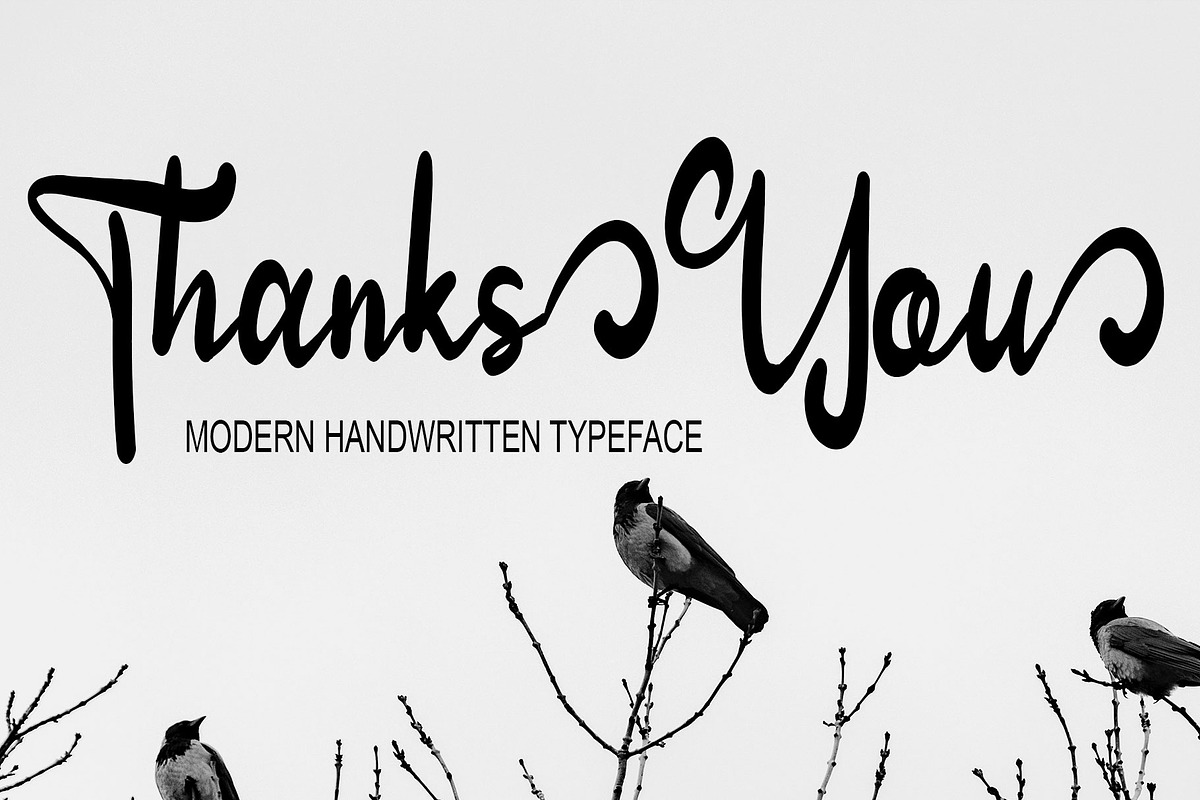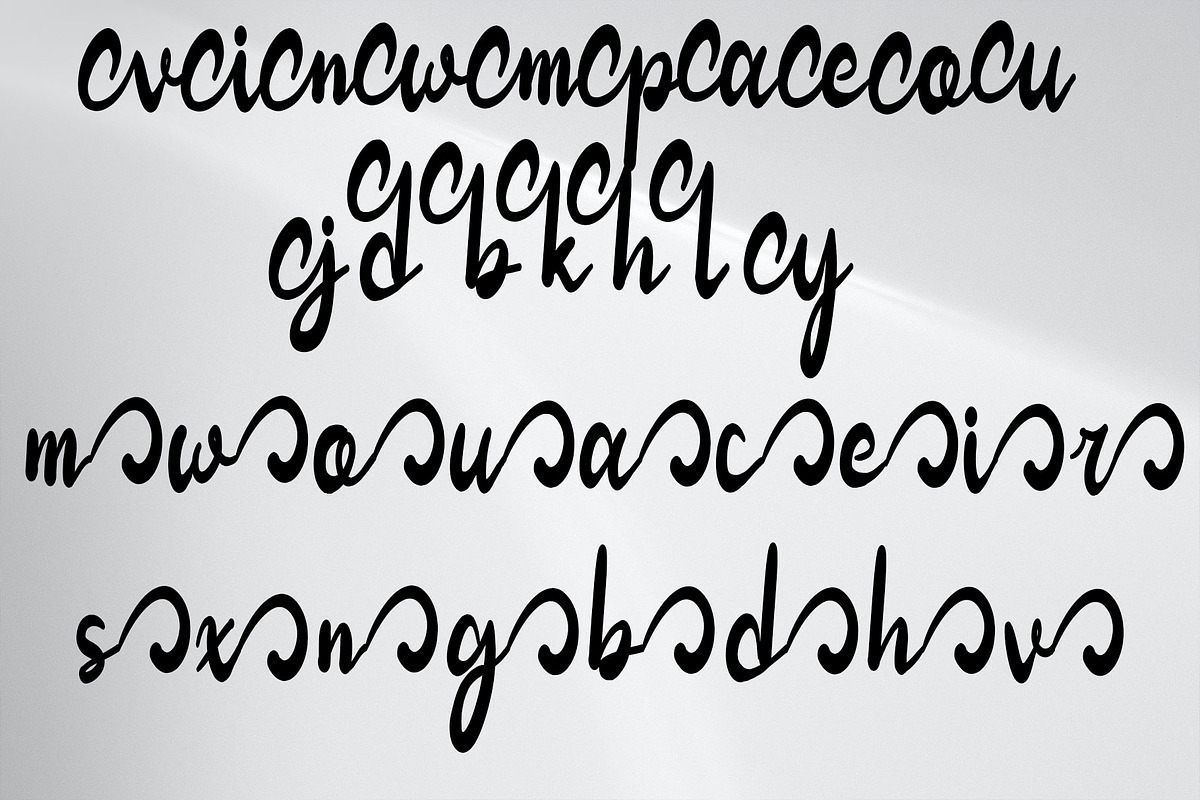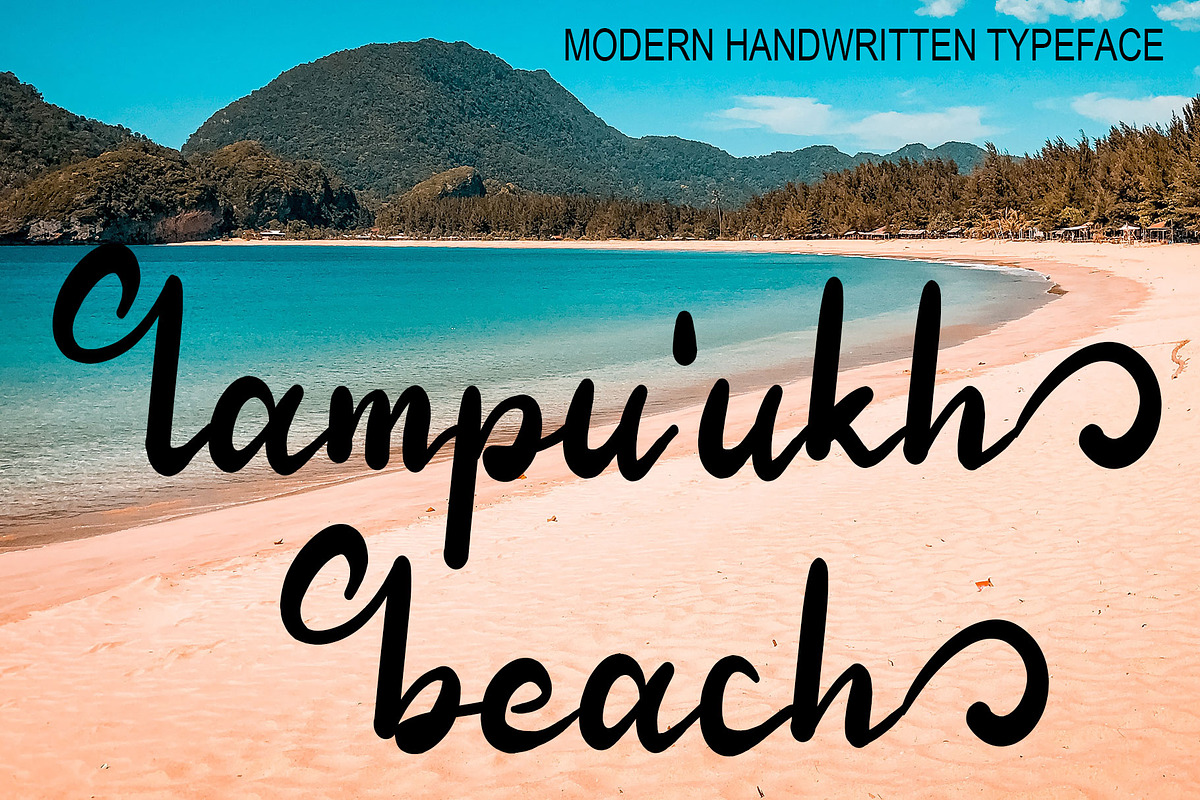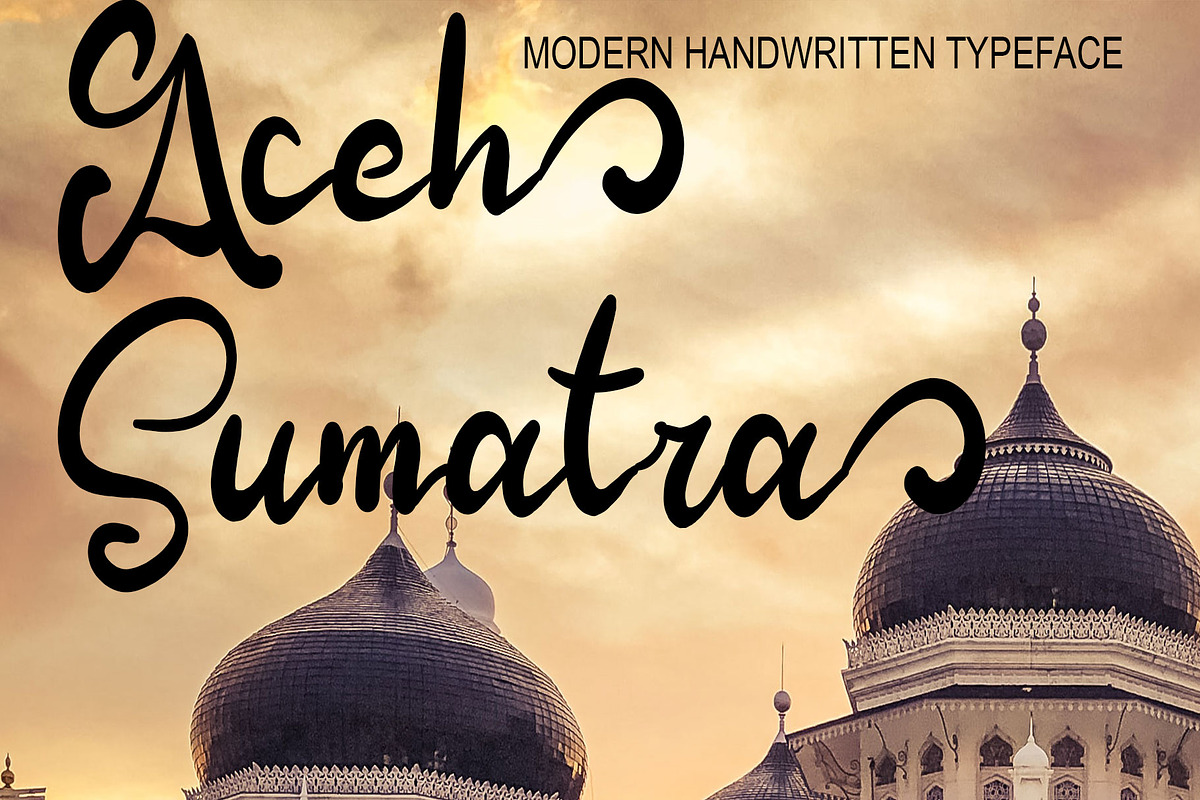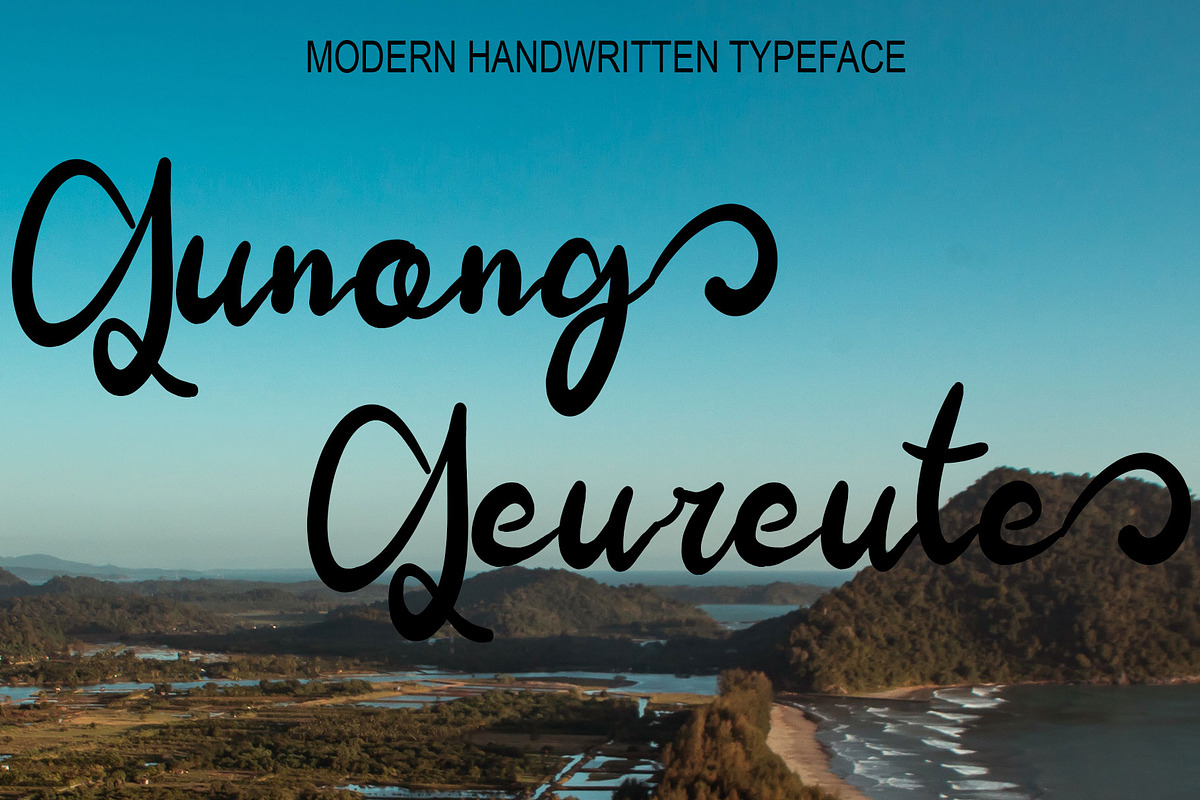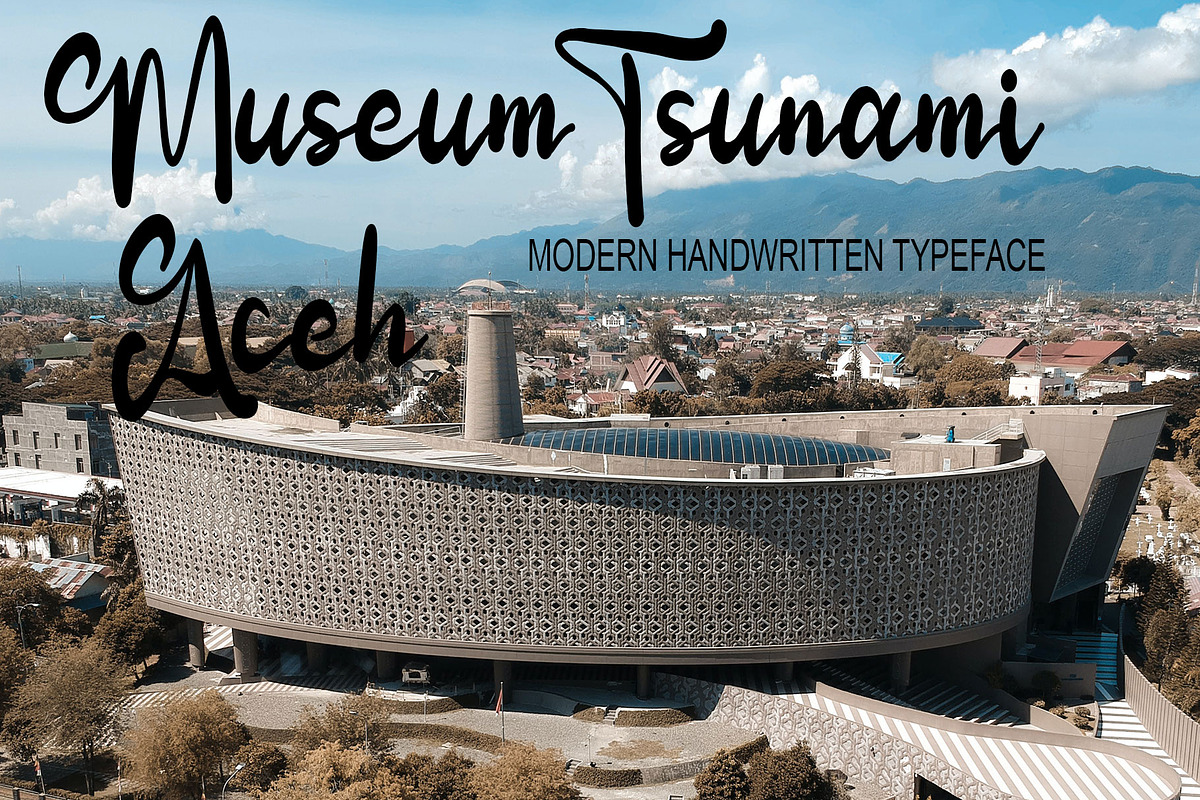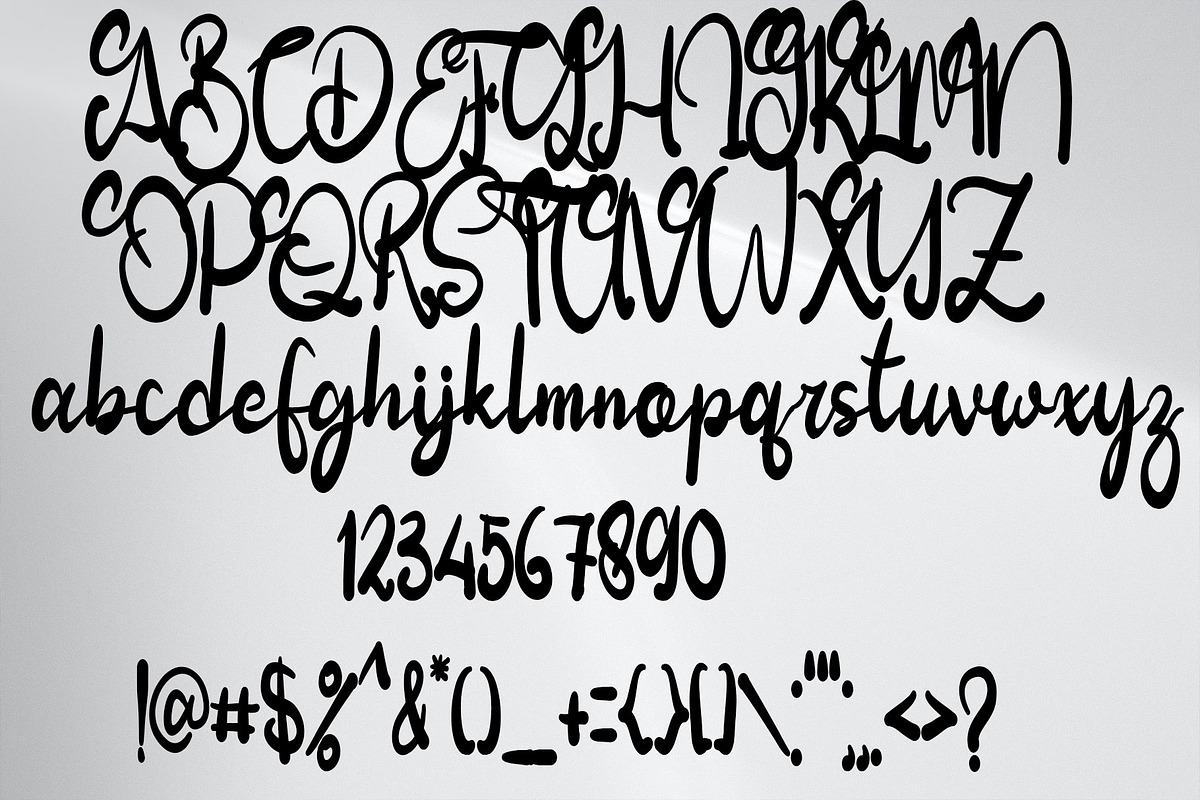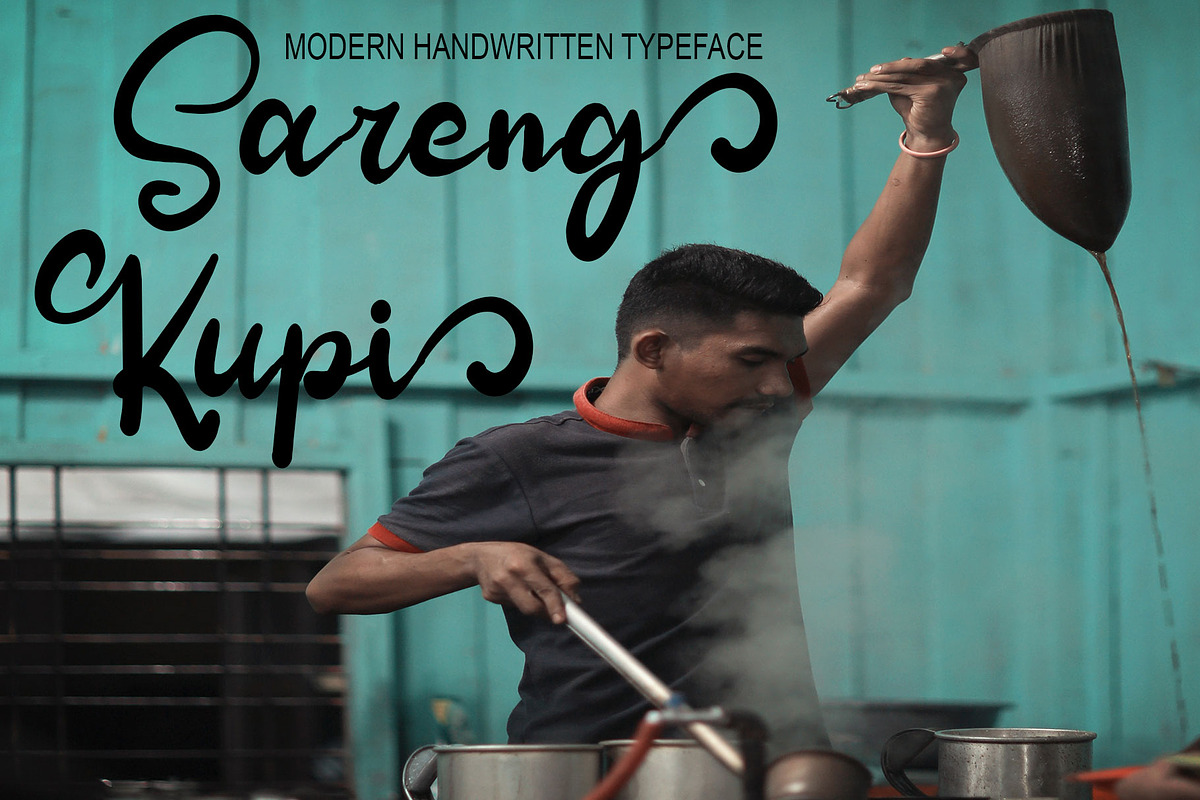
Aceh Sumatra
Aceh Sumatra is a beautiful handwritten font. this font is so simple that i write very carefully. Even though it looks simple, this font still looks cool and stylish.
This Fonts are perfect for: logos, branding, wedding invitations, business cards, greeting cards, posters, magazines, social media, proliferate fonts, planner prints and websites.